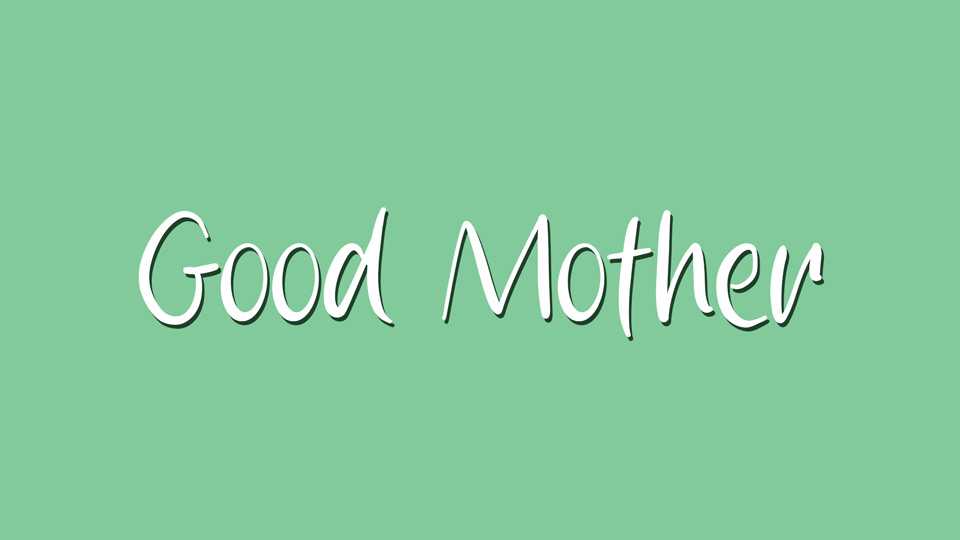
Download Good Mother font, a lovely handwritten typeface with simple and organic lines. Handcrafted with care, Good Mother font will bring your creative ideas to life with a naturally beautiful look.